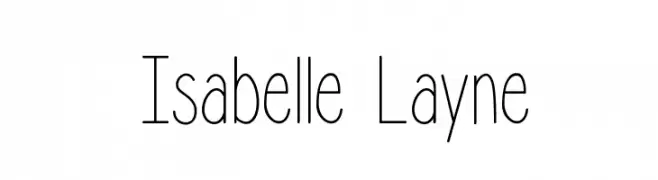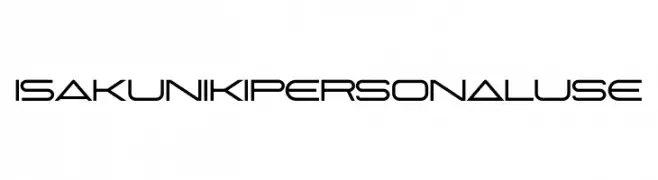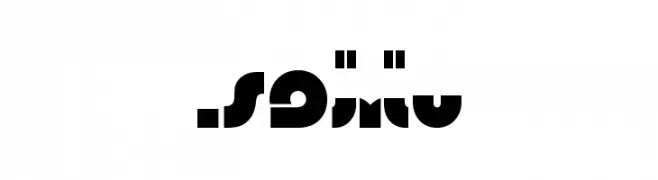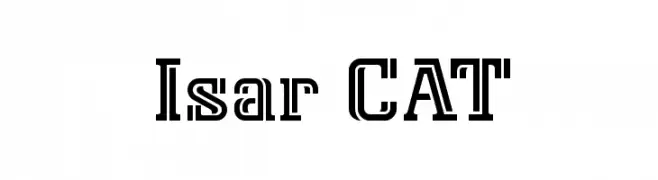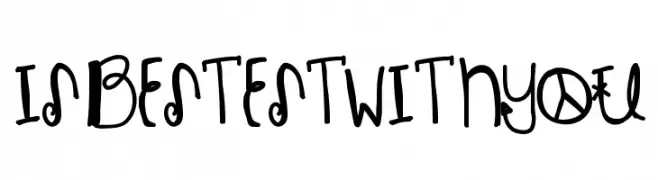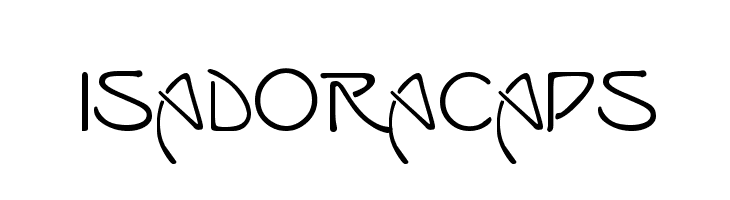
A sleek, modern font with tall, narrow letters and a minimalist aesthetic.
A playful, modern handwritten font with tall, narrow characters and rounded edges.
An artistic and modern font with elegant curves and angular cuts.
A sleek, modern font with geometric influences and a futuristic aesthetic.
A bold, three-dimensional font with sharp angles and clean lines.
A bold slab serif font with high contrast and a vintage-modern appeal.
A playful, hand-drawn font with quirky, irregular letterforms.